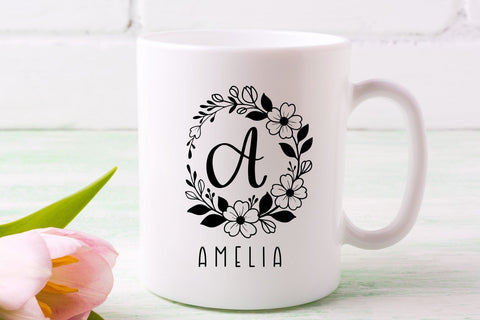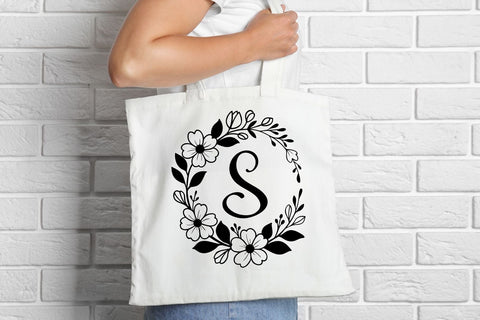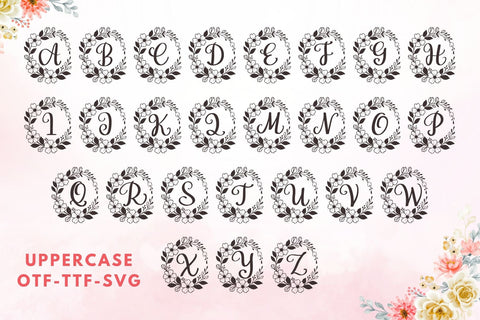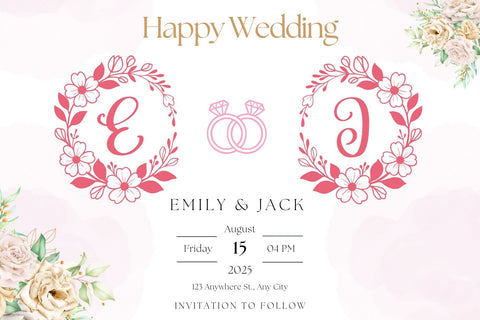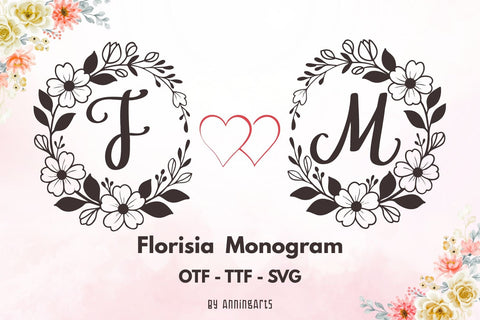
Florisia Monogram Font – Decorative Floral Letters for Cricut Projects
Florisia Monogram is a modern floral monogram font created with crafters in mind. With clean black line art letters and SVG files included, it’s perfect for Cricut and Silhouette users who want to personalize gifts, signage, or wedding decor. Ideal for use with cutting machines or printable design projects.